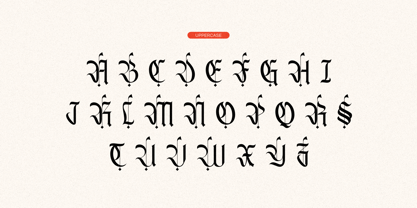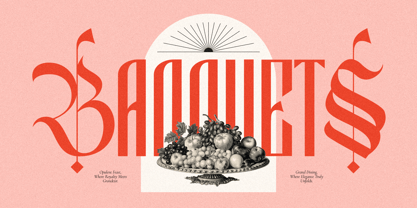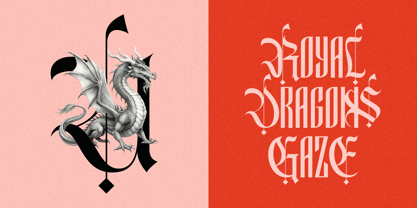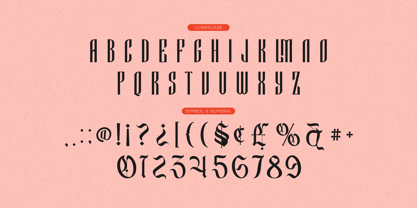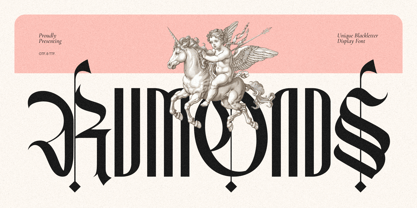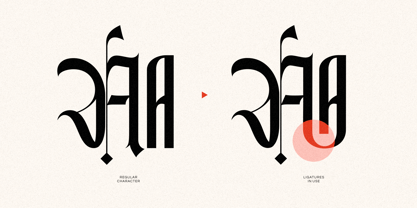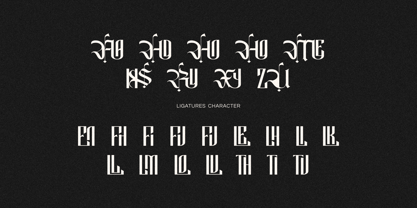
Rumonds
by Imoodev
The Rumonds Font Family was designed by Aulia Savira Putri and published by Imoodev. Rumonds contains 1 styles. More about this family
Introducing ‘Rumonds’ is a unique blackletter display font that showcases a modern twist on the traditional gothic style with sharp, pointed serif and vertical emphasis, and thick vertical strokes. The complexity of the letters, with numerous embellishments and curved strokes, adds to the ornate and elaborate nature of the font. This font combines the historical essence of blackletter with contemporary design trends, making it versatile for both traditional and modern aesthetic projects. Suitable for themes related to history, fantasy, classical feel, fantasy, medieval, or luxurious branding, and mythology, emphasizing a majestic and ancient vibe.
Designers: Aulia Savira Putri
Foundry: Imoodev